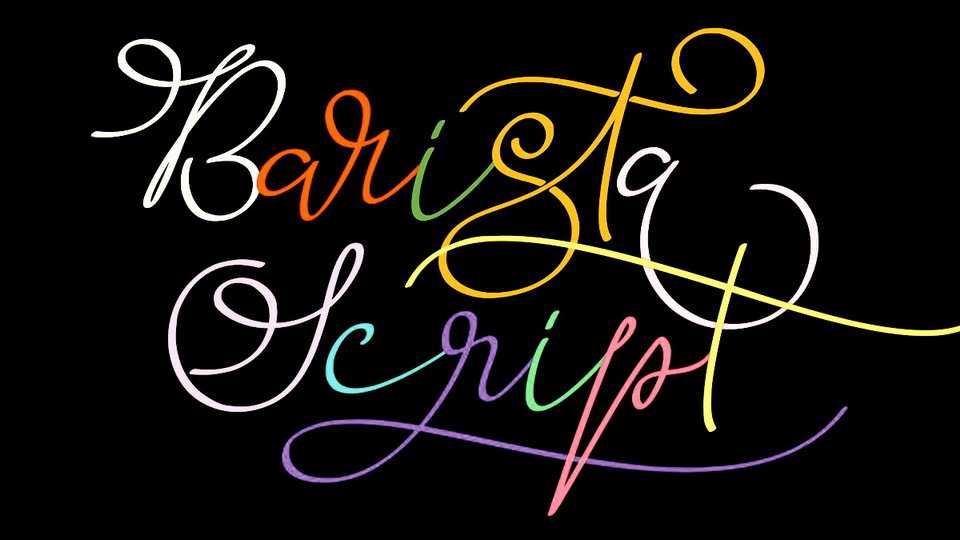
Download Barista Script font, an artistic signature typeface that is easy to remember. Barista Script font is great for unique branding, photo overlays, watermarks, business cards, invitations, and much more!